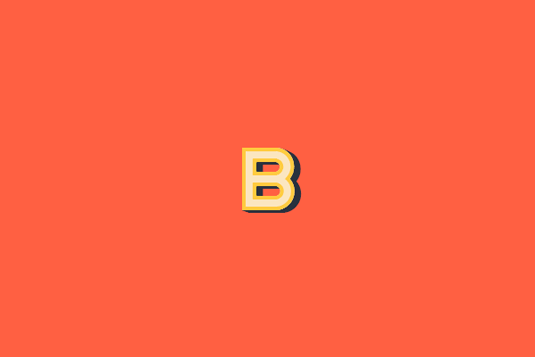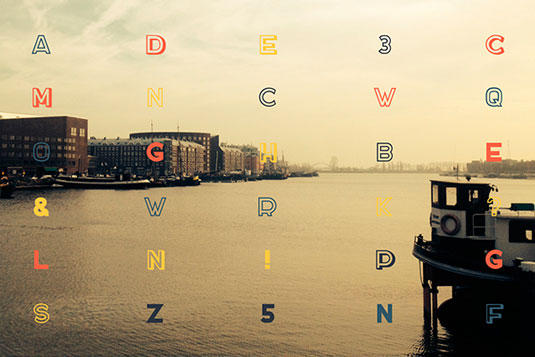
Font of the day: Docker
Every day we showcase the best fonts on the web. Today it's Docker by Slava Krivonosov, which is free to download.
Docker by Slava Krivonosov
An uppercase sans serif font, Docker was created by graphic designer Slava Krivonosov. Available as a free download for personal and commercial use, Docker is available in three styles; regular, inline and pseudo 3D.